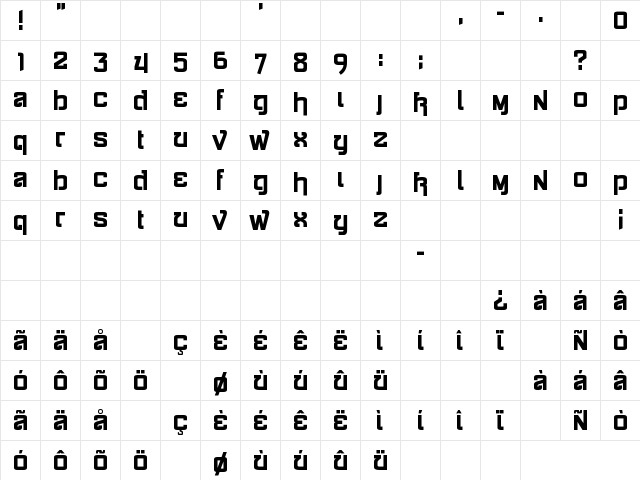
Siamese Katsong Regular
Design Context for Siamese Katsong Typeface
Siamese Katsong takes a measured approach to typography — its balanced proportions and neutral character make it a reliable workhorse for both digital and print work.